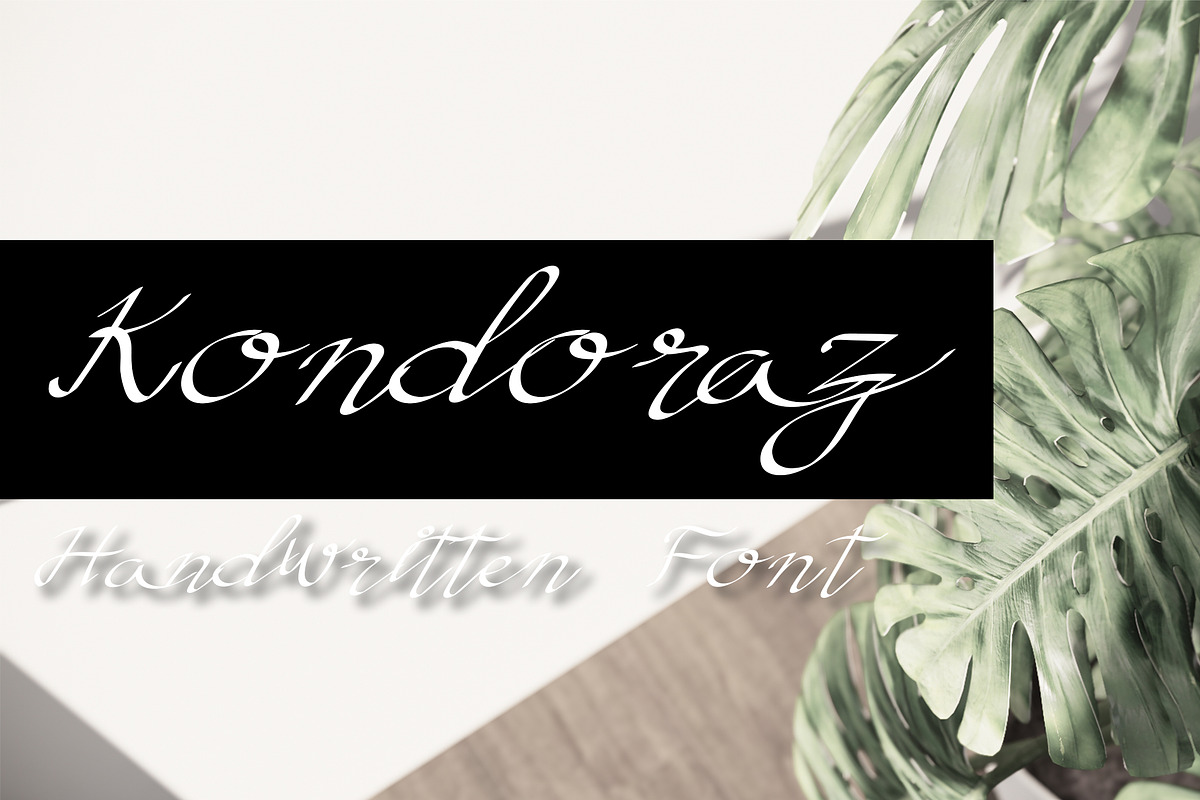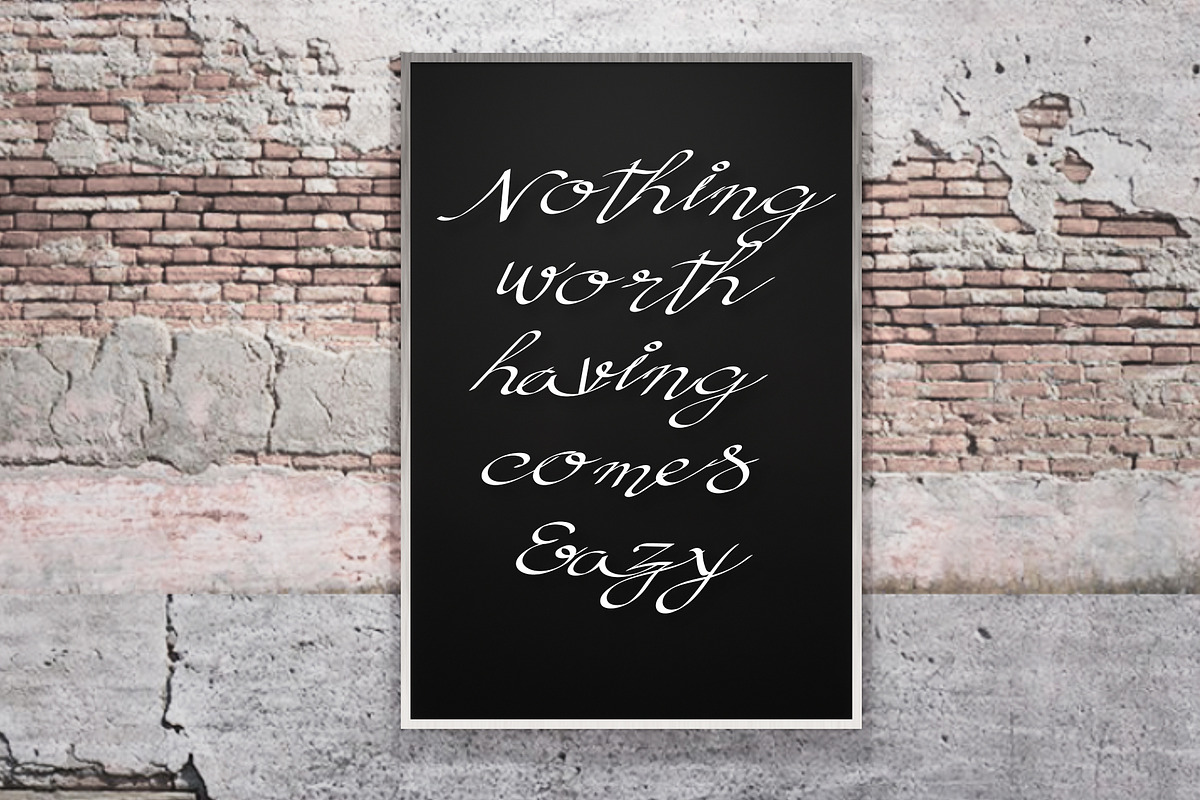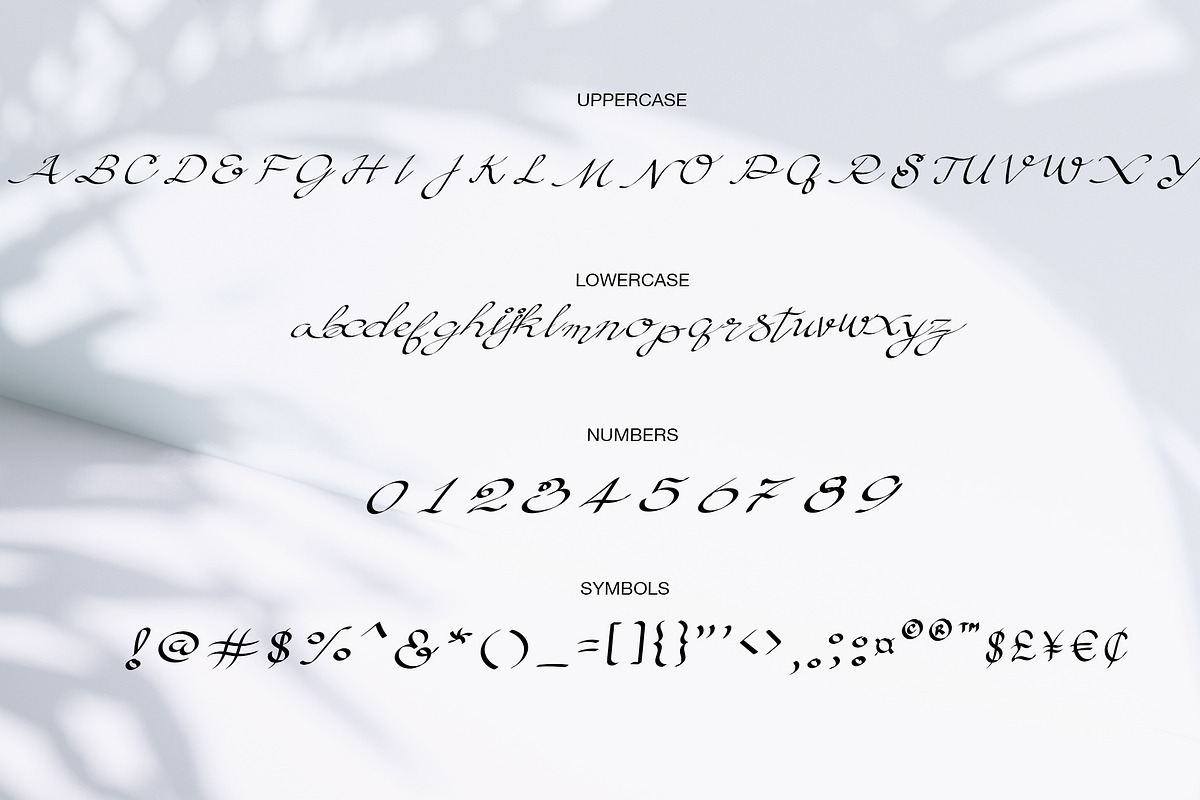
Kondoruz font
Kondoruz Script font is Hand writing style font. Line drawing pen Add features to make it look beautiful and delicate.
- Kondoraz Italic
Kondoruz font by skyclick fits naturally into Branding, posters, packaging, typography.